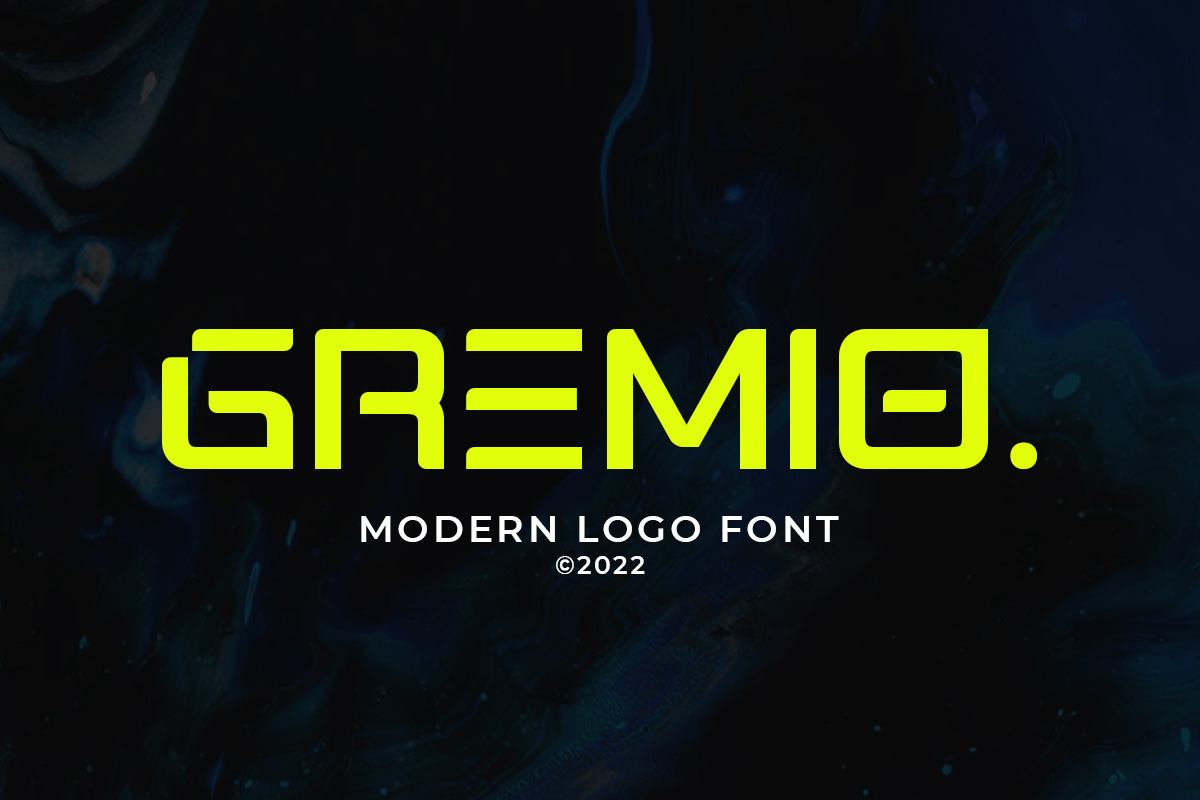
Gremio - Modern Logo Font Free Download
Gremio – Modern Logo Font Free Download
Gremio – Modern Logo Font Free Download is a sleek and stylish sans-serif typeface designed specifically for modern branding and logo design. With its clean lines, geometric structure, and minimalistic flair, Gremio is perfect for tech startups, fashion labels, product packaging, digital interfaces, and bold visual identities.
The font features smooth curves and a refined balance between sharp edges and rounded forms, making it both professional and approachable. It stands out in headlines and logotypes, offering a contemporary aesthetic that’s both versatile and eye-catching.
Build a strong and stylish brand presence with the clean, modern vibe of Gremio.